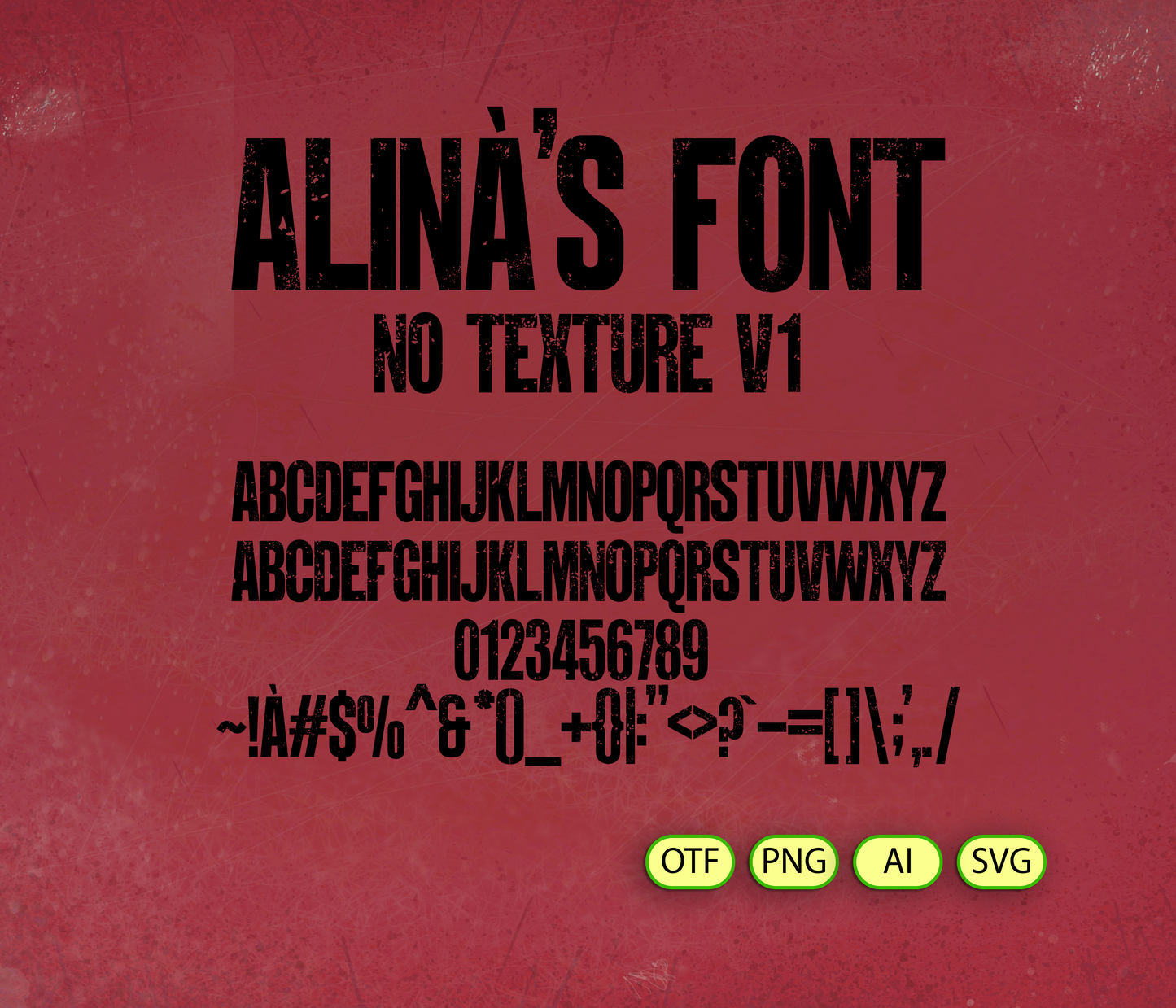
Jester: Madness Unleashed Font
Step into the chaotic world with our Jester: Madness Unleashed font, inspired by an upcoming film that delves deeper into the twisted psyche of a notorious villain and his newfound partner. This font captures the essence of shared madness and the sinister charm of an anarchic persona. Whether you're a fan of the 2019 blockbuster or eagerly awaiting the 2024 sequel, this typeface is a tribute to the darker side of the universe, where chaos and creativity collide.
Fonts contains upper, lower case and special character for À simbol please use @
The Jester: Madness Unleashed font is incredibly versatile, perfect for a wide range of creative projects. Here are ten specific uses to inspire your imagination:
- Sinister Birthday Invitations: Set the tone for a darkly themed party with invitations that capture the eerie elegance of the jester.
- Eerie Cake Toppers: Add a touch of madness to your celebration cakes with customizable cake toppers.
- Bold T-Shirt Prints: Make a statement with t-shirts that feature the iconic typography of a notorious villain.
- Quirky Crafts: Use this font with your Cricut machine for unique DIY projects that stand out.
- Gothic Home Décor: Create wall art and home décor pieces that bring a piece of this dark world into your living space.
- Event Supplies: From banners to party favors, add a thematic twist to your events with this font.
- Customized Stationery: Design notebooks, journals, and planners that reflect your love for the jester's world.
- Themed Apparel: From hoodies to jackets, let your clothing express the darker side of your fandom.
- Accessories: Craft unique accessories such as bags and hats with this distinctive font.
- Digital Designs: Enhance your social media graphics, website designs, and digital artwork with a touch of chaotic charm.
Dive into the world of shared madness with the Jester: Madness Unleashed font and let your creativity run wild. This typeface not only captures the essence of the jester's chaotic spirit but also offers endless possibilities for customization and personalization, making it perfect for fans of the most notorious villain.